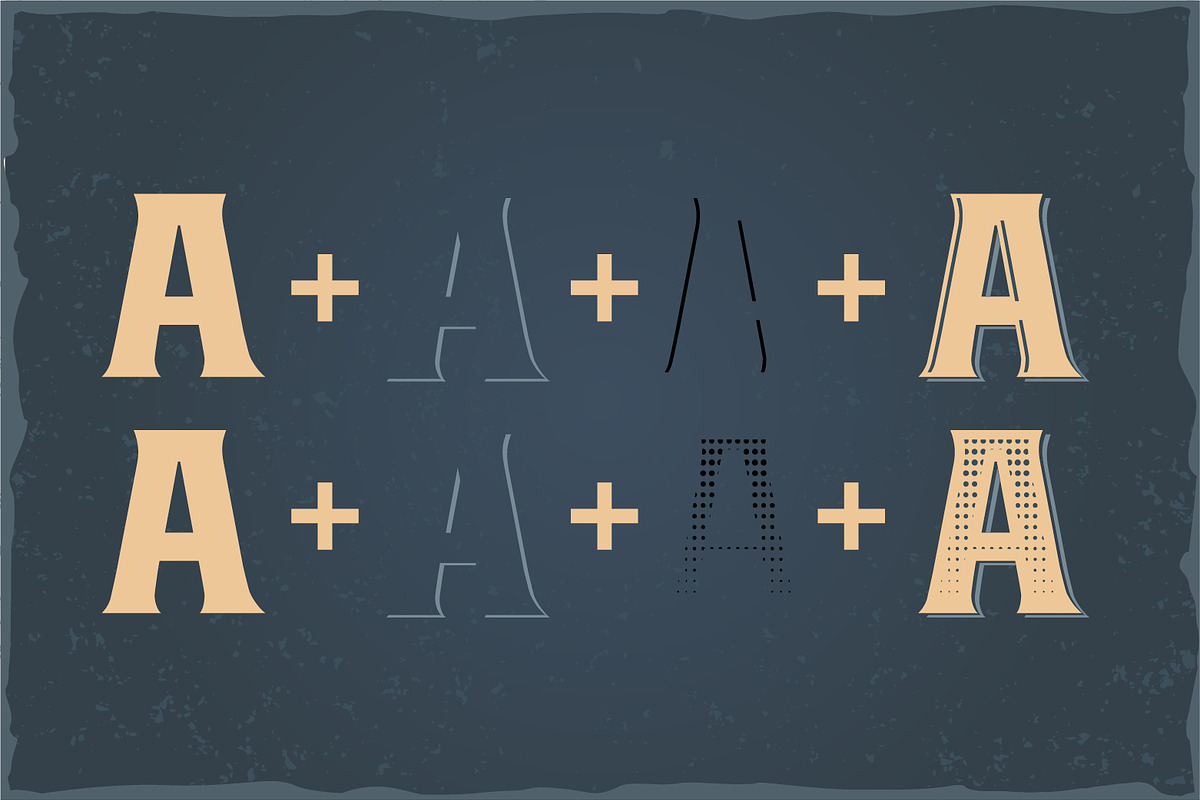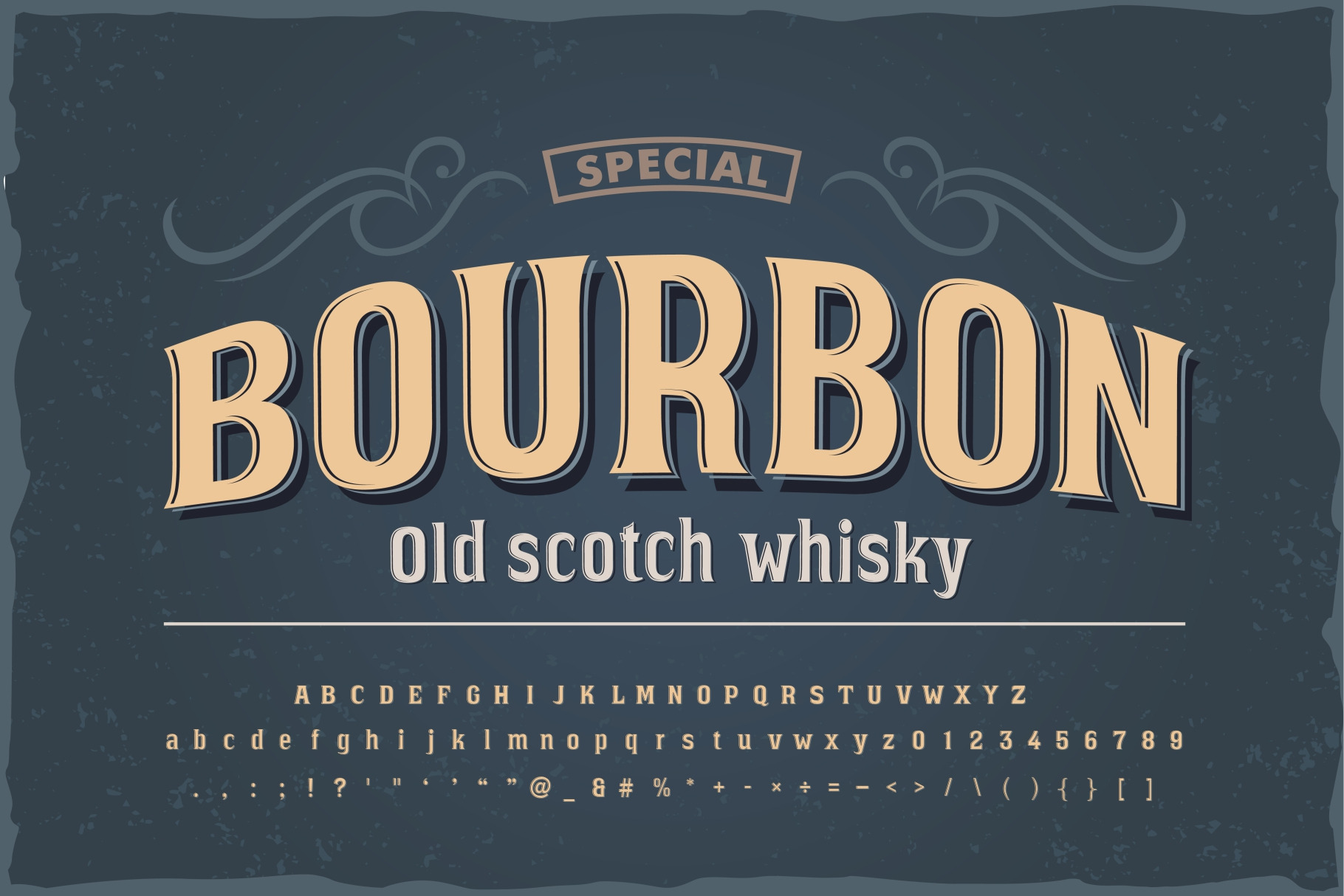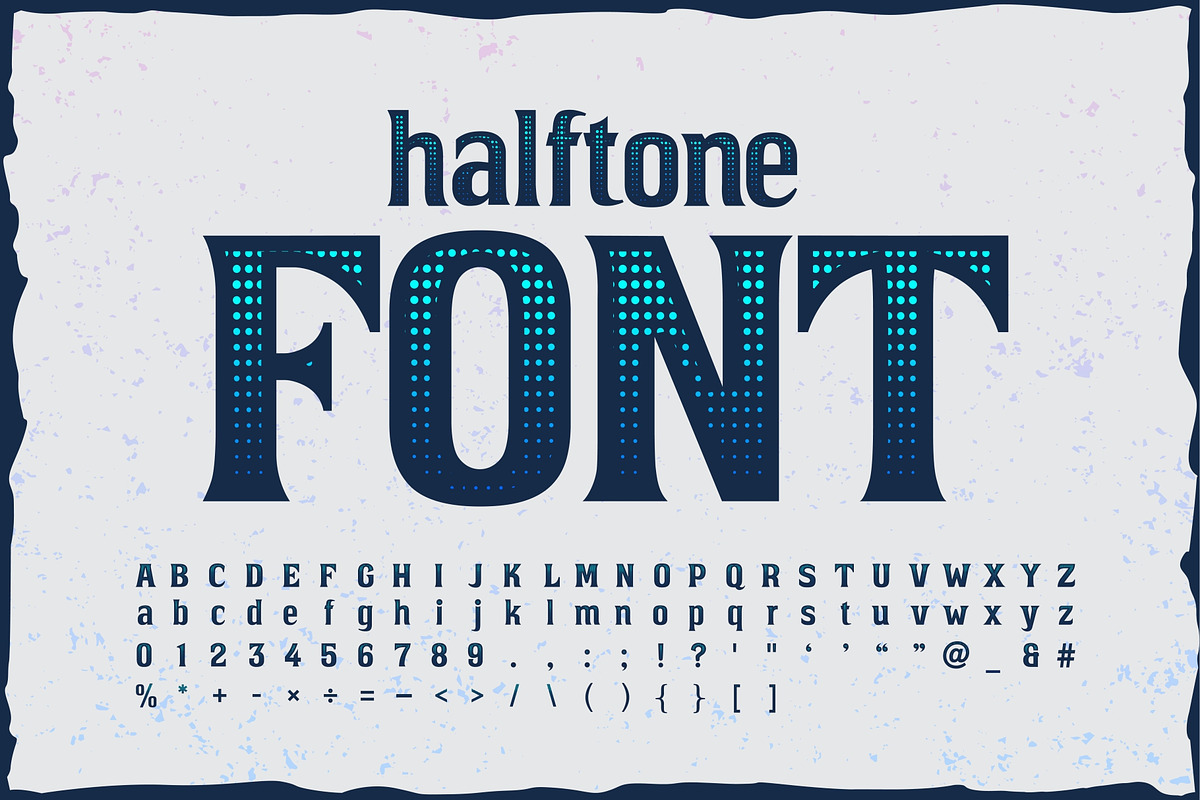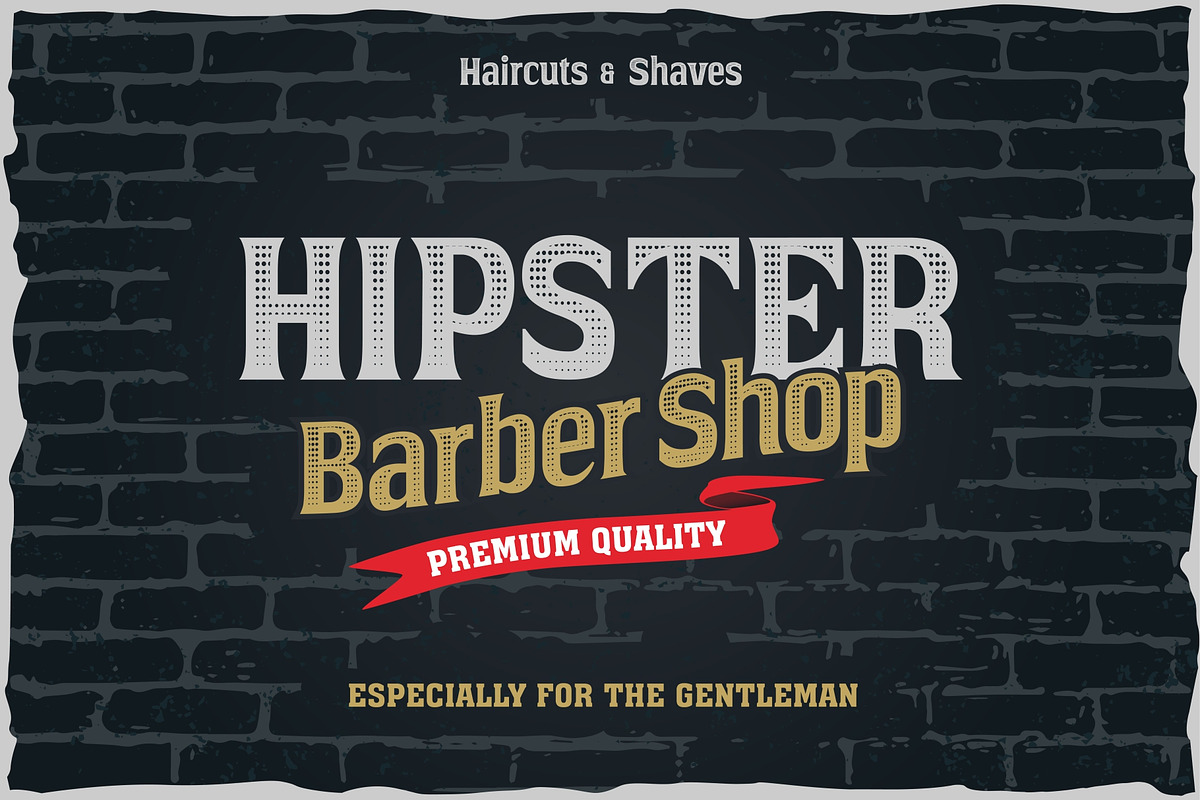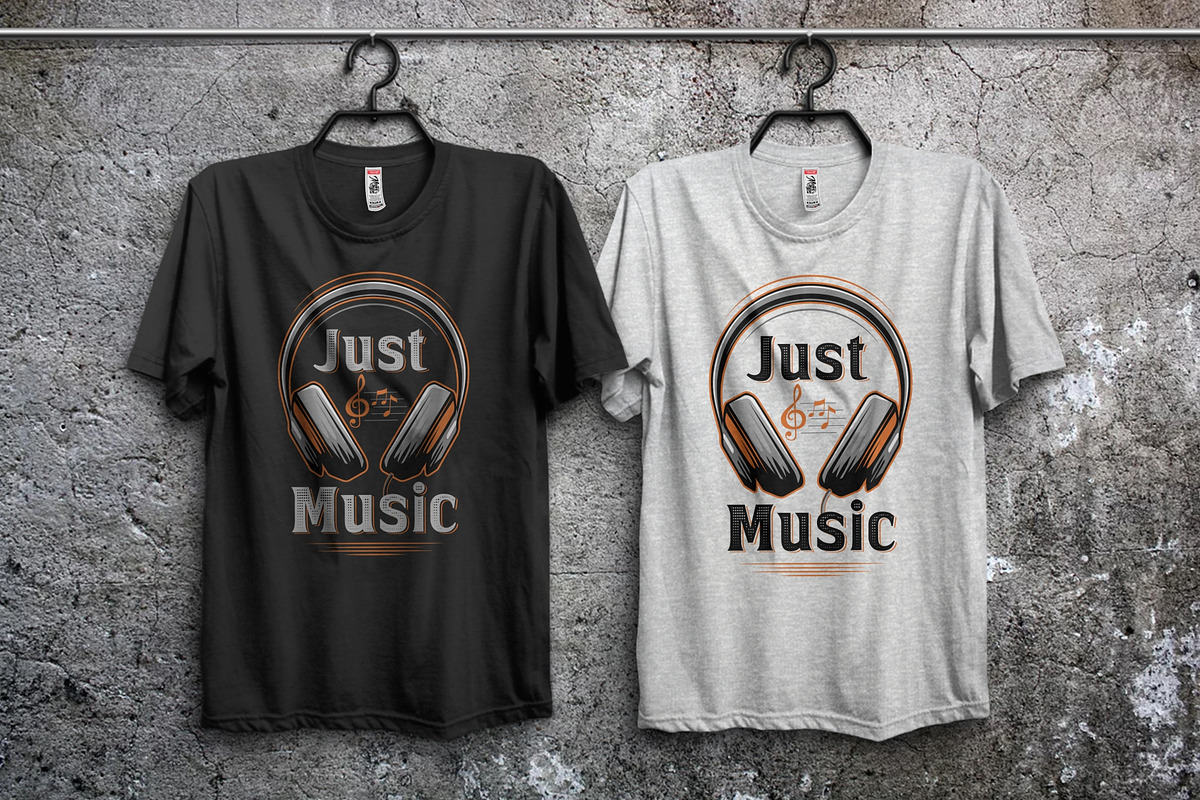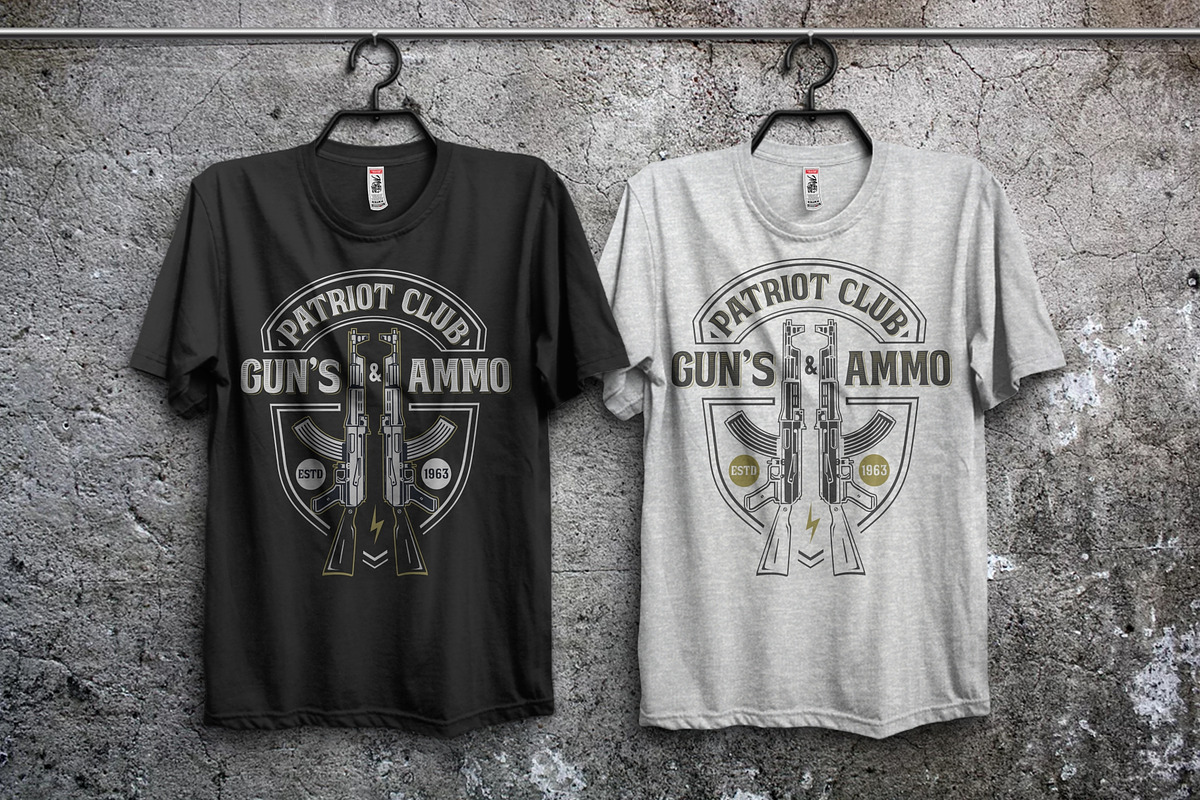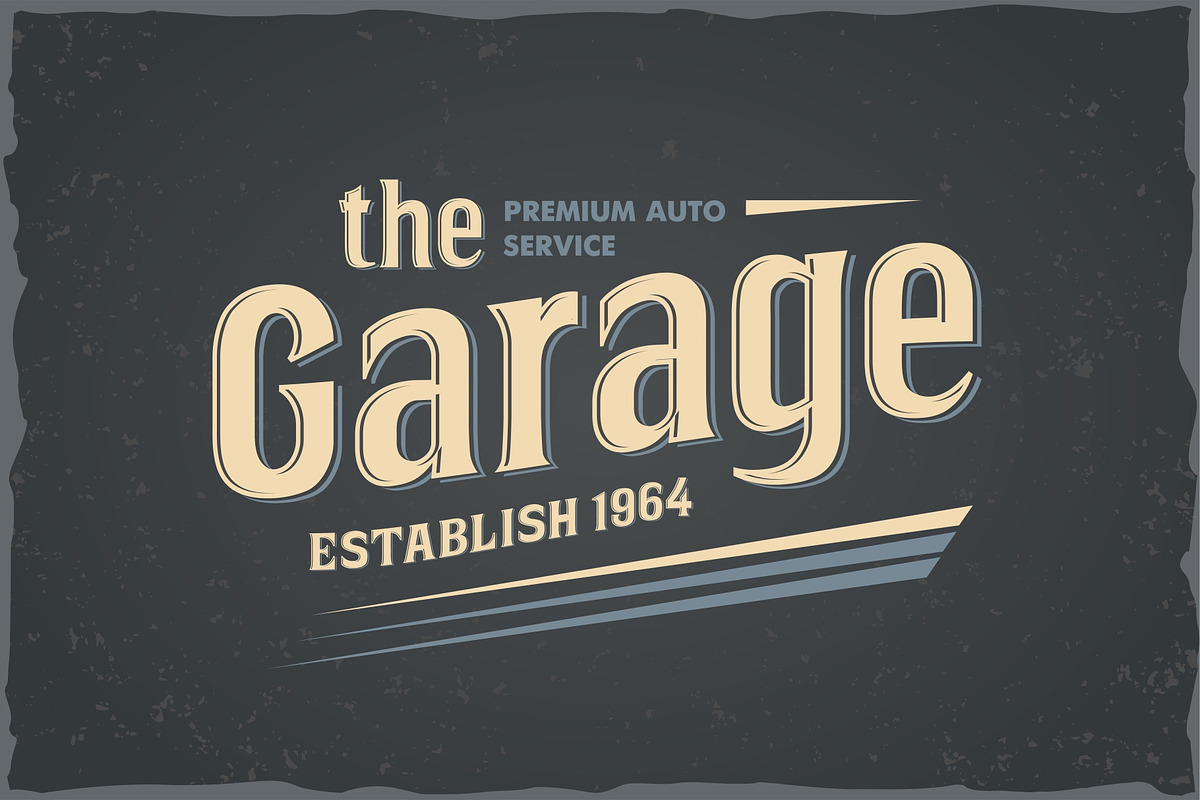
Bourbon vintage font
Bourbon, vintage font + bonus. Inside the archive:
- 4 font files (base, halftone, shadow, inner shadow)
- 2 t-shirt designs
- vector Garage, hipster, bourbon labels